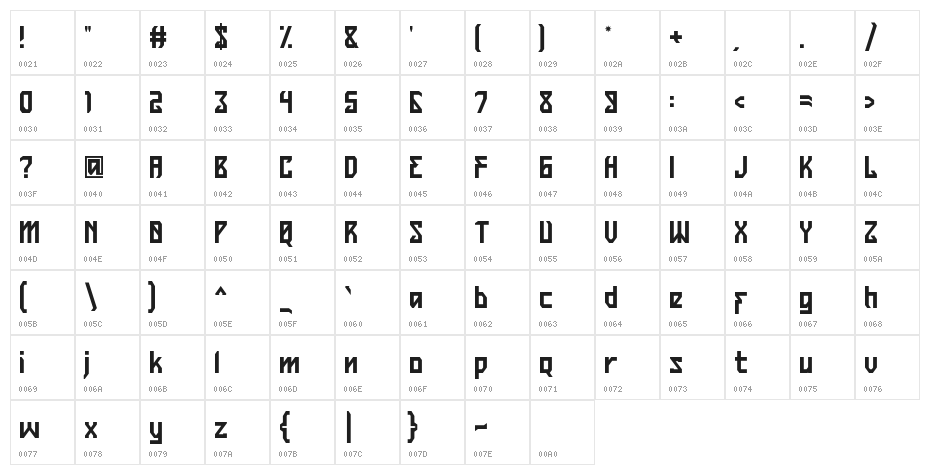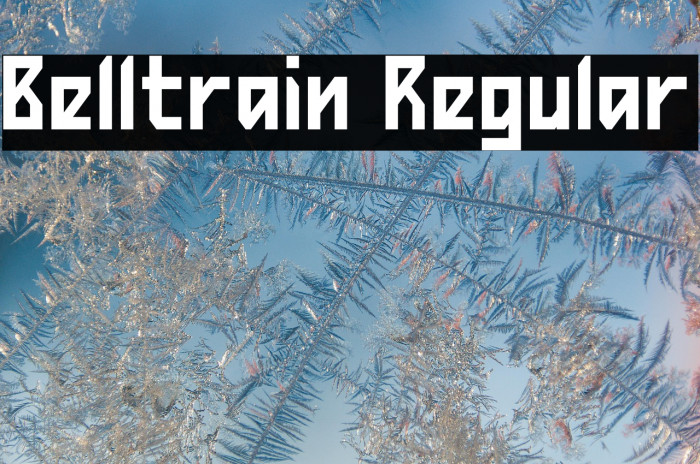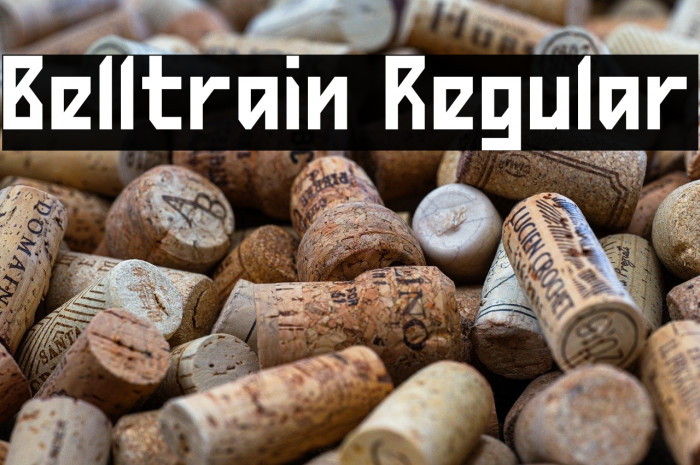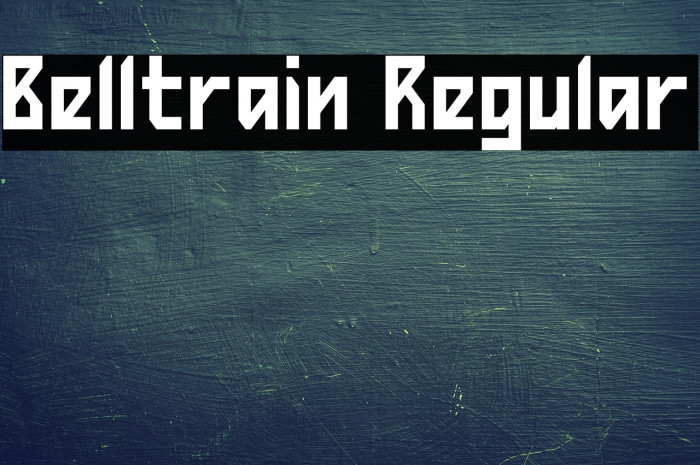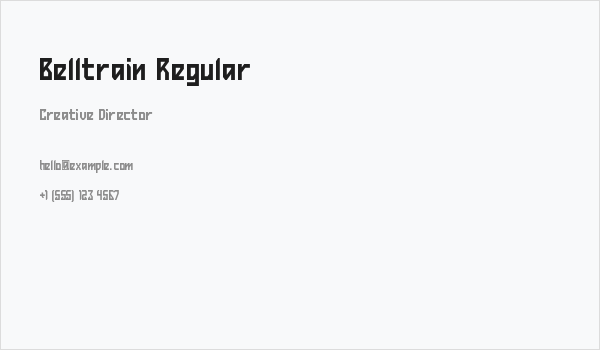
Belltrain Regular Font
Belltrain Regular Description
This font features a bold, geometric design with sharp angles and a futuristic aesthetic. The characters are constructed with straight lines and pointed edges, giving it a distinct, edgy appearance. The uppercase and lowercase letters maintain a consistent style, with the lowercase slightly smaller but equally bold. Numbers and special characters follow the same angular design, ensuring uniformity across all glyphs. This font's unique style makes it stand out, suitable for projects that require a modern and striking visual impact.
| Proposed Projects | Ideal for sci-fi themed designs, video game titles, posters, and branding that requires a modern, edgy look. |